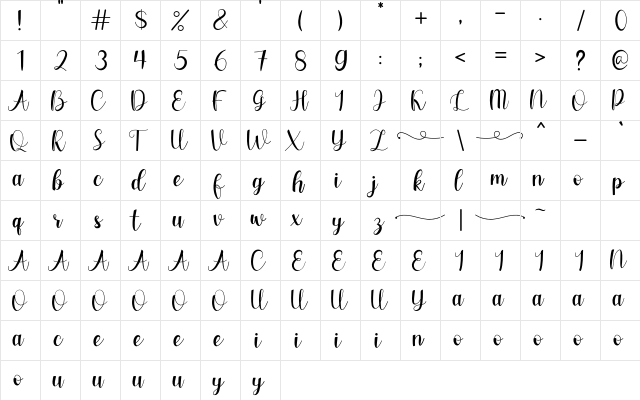
Falina Sweet Regular
Design Context for Falina Sweet Typeface
Falina Sweet is a composed and adaptable typeface that performs quietly and consistently across a wide range of design contexts.